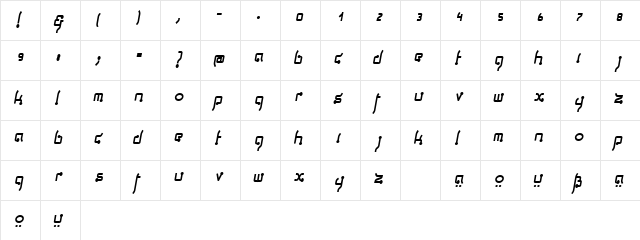
Thaiga Italic
Design Context for Thaiga Typeface
Thaiga is a composed and adaptable typeface that performs quietly and consistently across a wide range of design contexts. The dynamic lean of this cut emphasises speed and emphasis in any layout.
Pro Tip: Try Thaiga for annotation and caption copy alongside an upright companion — the contrast in angle creates a dynamic but ordered typographic system.